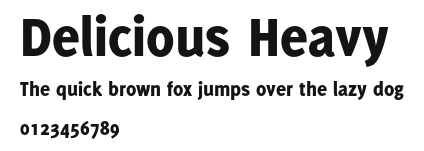
Delicious Heavy Preview
About Delicious Heavy.otf
Delicious Heavy.otf is a modern, elegant sans-serif font designed for ultimate readability and visual harmony. Perfect for branding, headlines, web design, and print materials.